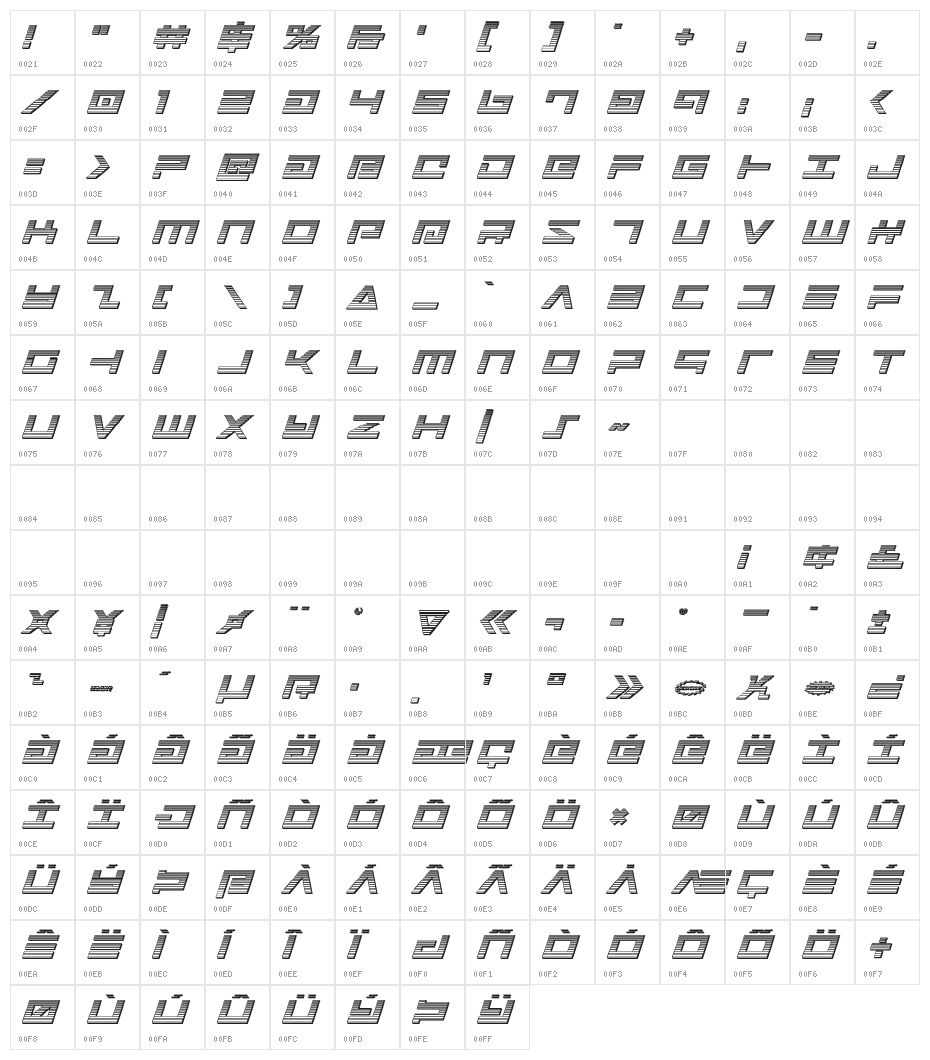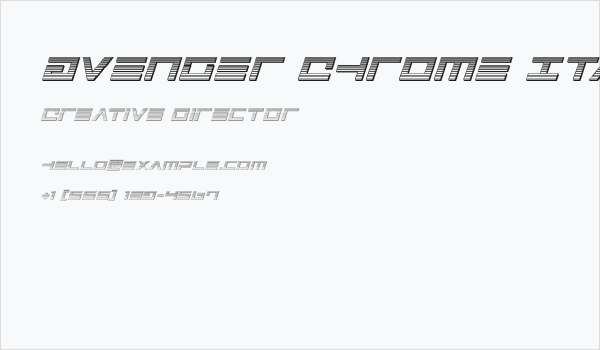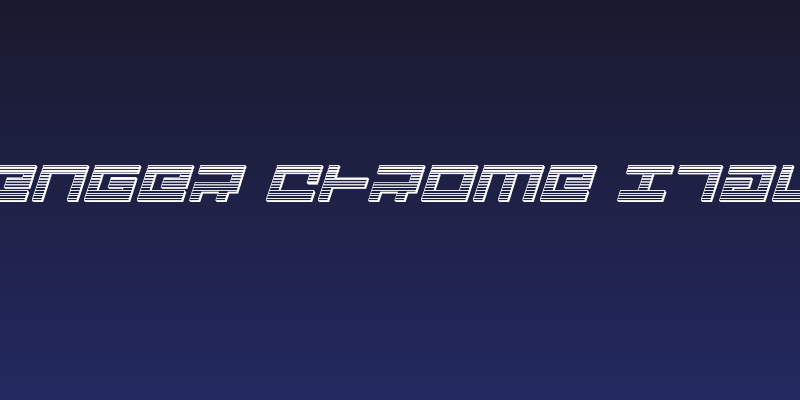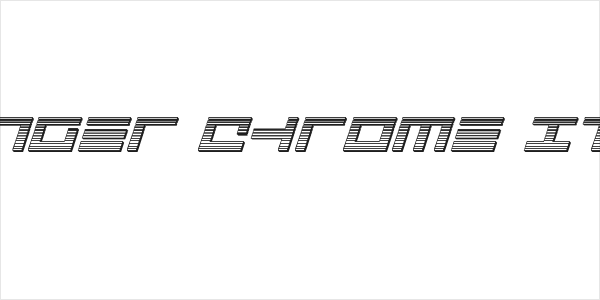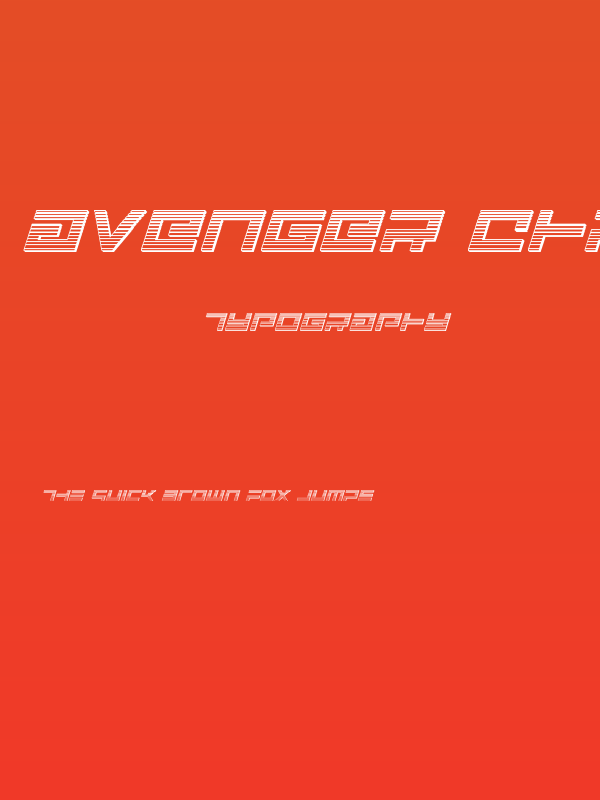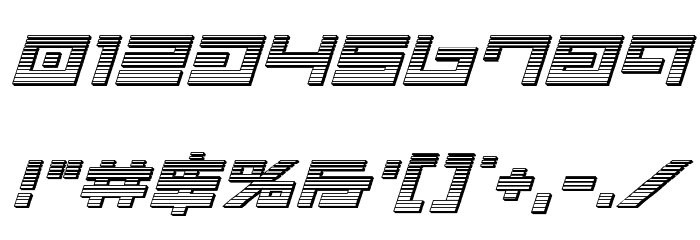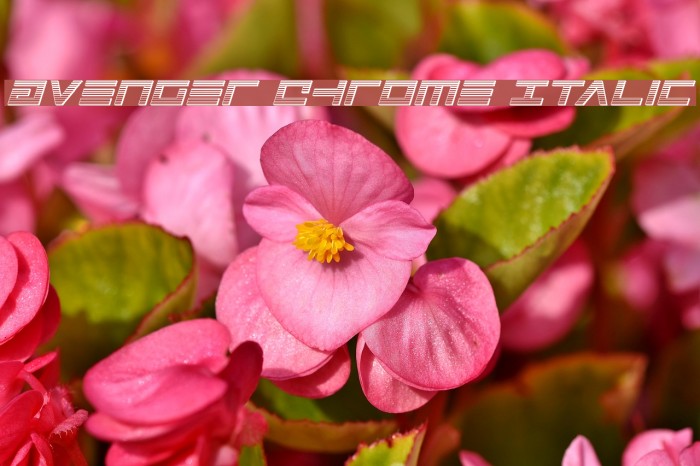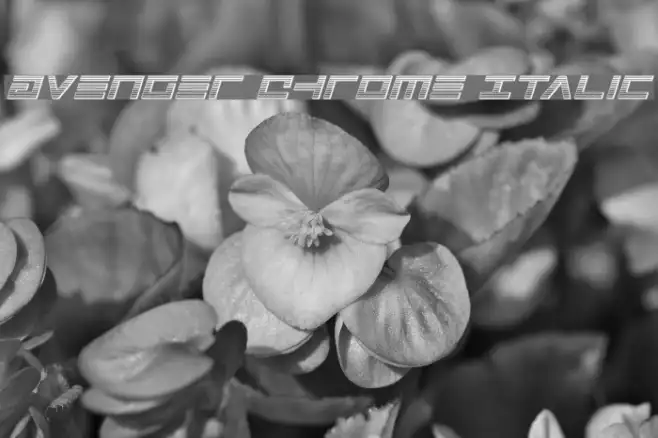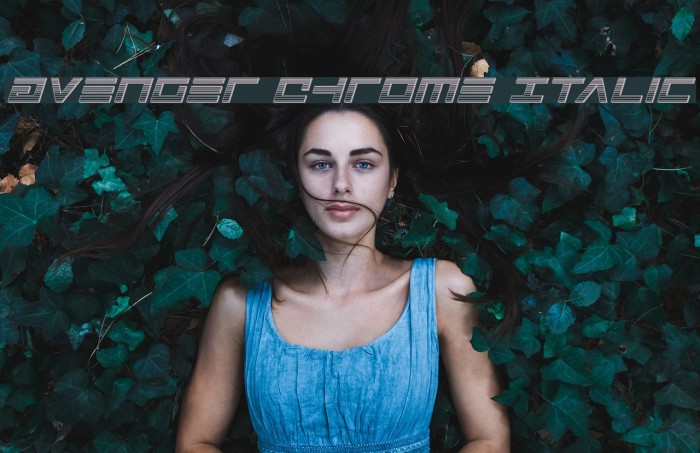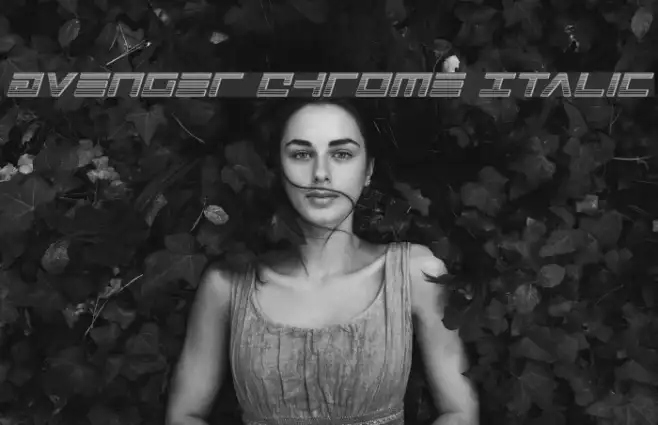
Avenger Chrome Italic Font
Avenger Chrome Italic Description
This font features a futuristic and dynamic design with a chrome-like appearance. The characters are italicized, giving them a sense of motion and speed. Each letter is composed of multiple parallel lines, creating a layered effect that adds depth and dimension. The font is highly stylized, making it suitable for projects that require a bold and modern aesthetic. The uppercase and lowercase letters maintain a consistent style, with the numbers and special characters following the same design principles. This font is ideal for creating eye-catching headlines, logos, and posters.
| Proposed Projects | Ideal for sci-fi themed projects, tech company branding, video game titles, and modern poster designs. |